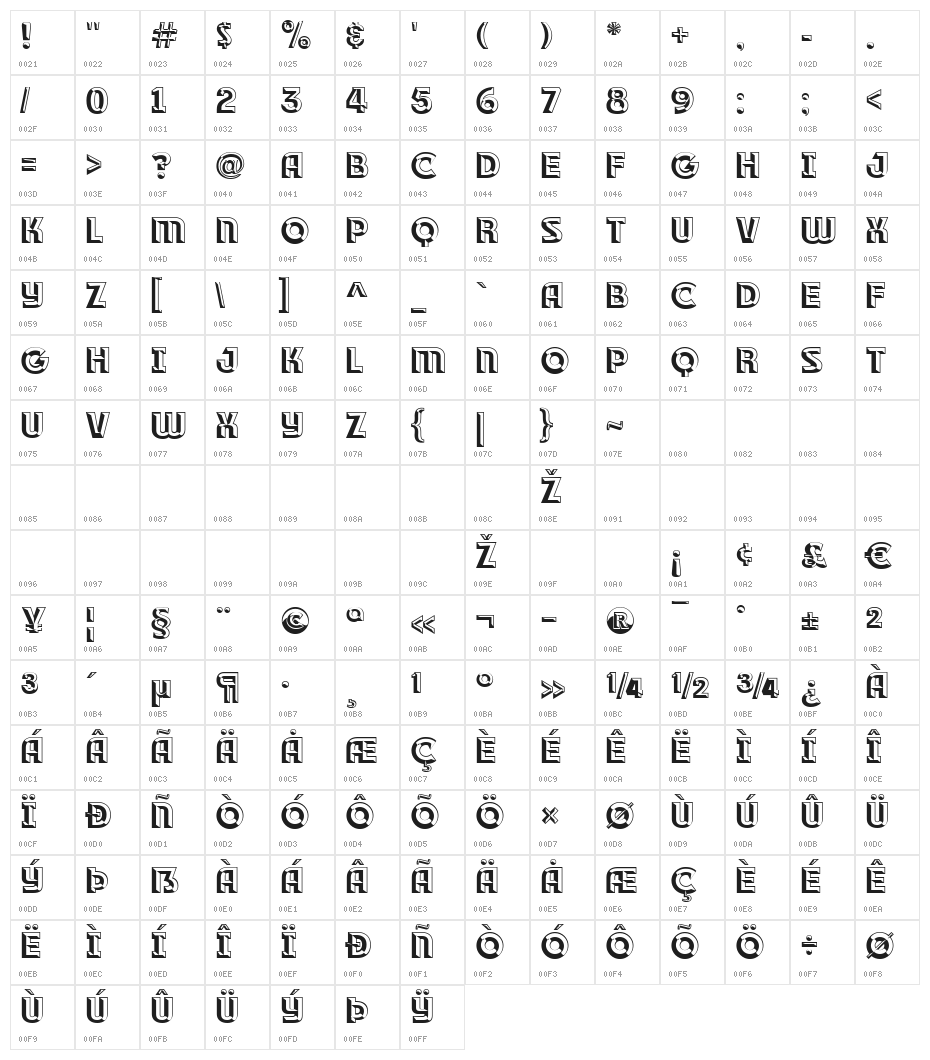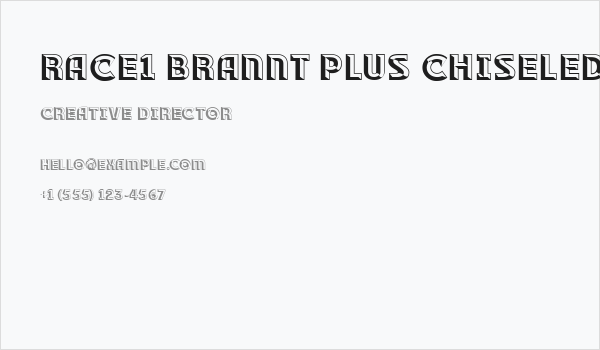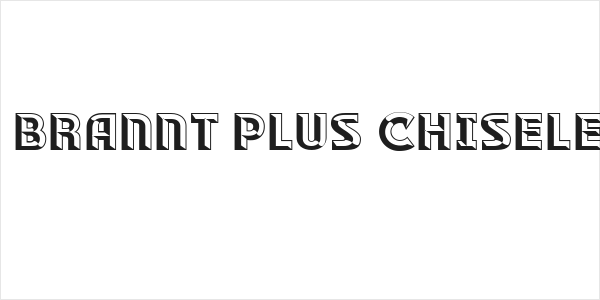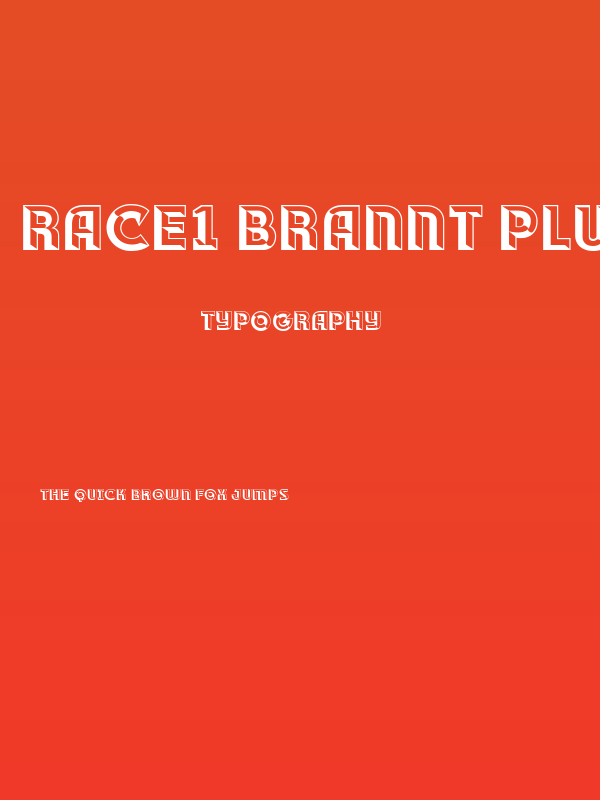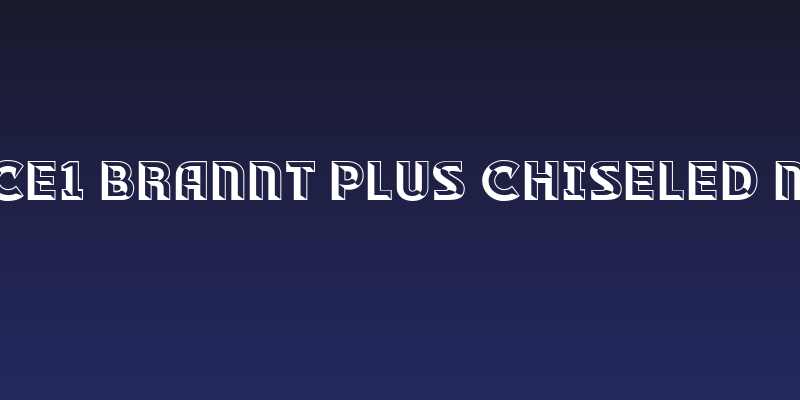
RACE1 Brannt Plus Chiseled NCV Font
RACE1 Brannt Plus Chiseled NCV Description
This font features a bold and striking design with a chiseled, three-dimensional effect that gives it a strong and impactful presence. The uppercase letters are crafted with sharp angles and a distinct shadow, creating a sense of depth and solidity. The lowercase letters maintain the same boldness, ensuring consistency across the typeface. Numbers and special characters are designed to match the bold, chiseled style, making them stand out prominently. This font is ideal for projects that require a strong visual impact and a modern, edgy aesthetic.
| Proposed Projects | Ideal for logos, headlines, posters, and branding materials that require a bold and modern look. |